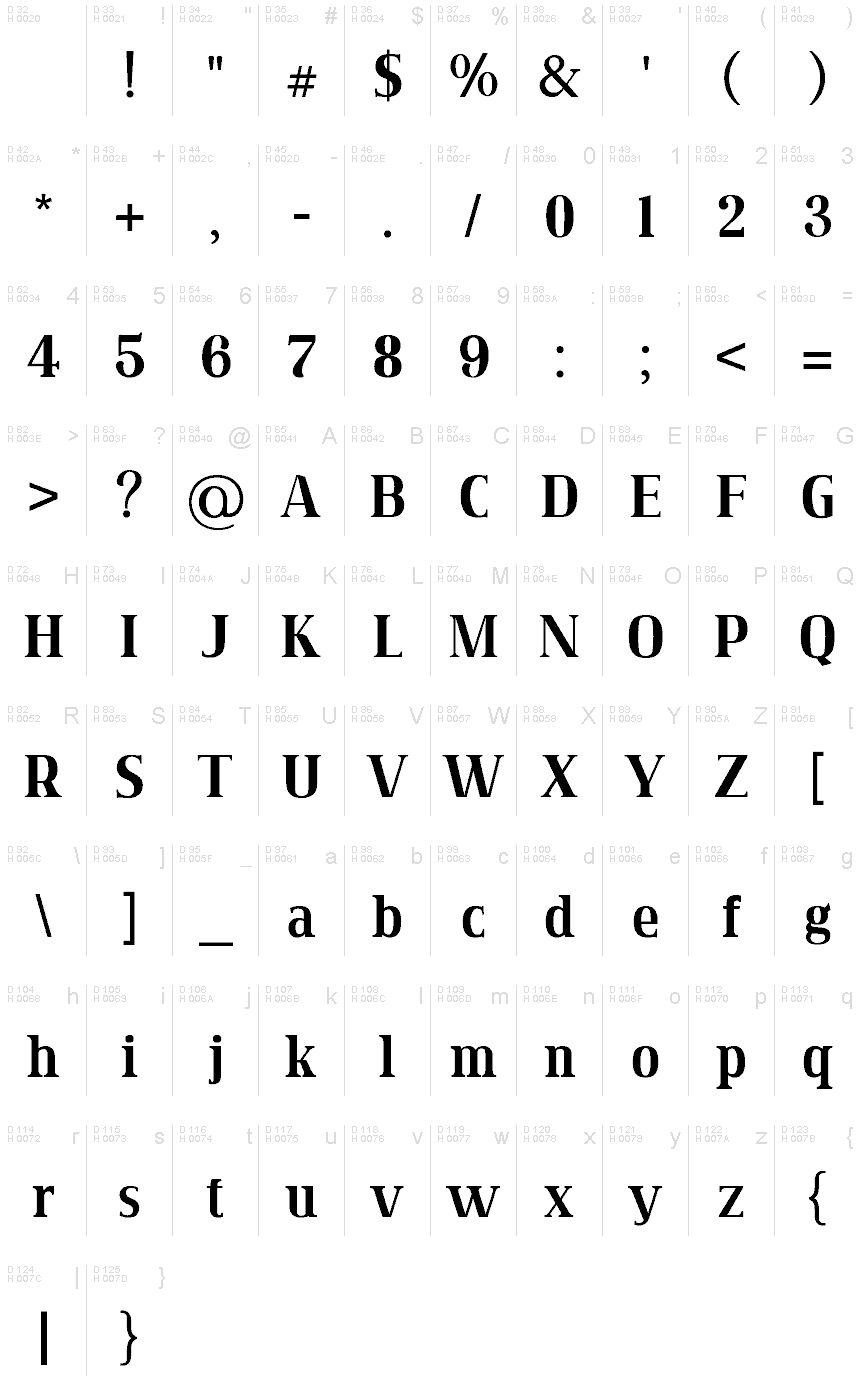
Ferdinand
Ferdinand font by UI Creative is a condensed serif font with a strong classical vibe. With its authoritative style and historic influences, it brings out the nostalgia of formal and traditional writings. The font gives off an old-school aura which combines well with the various modern elements designers are looking for today.
Free to download, Ferdinand can be used for magazines, newspapers, marketing campaigns, branding projects, book covers and contents, wedding invitations as well as stationery items. Use it in poster design or on restaurant menus to properly give your audience that unique feeling this detailed font offers!